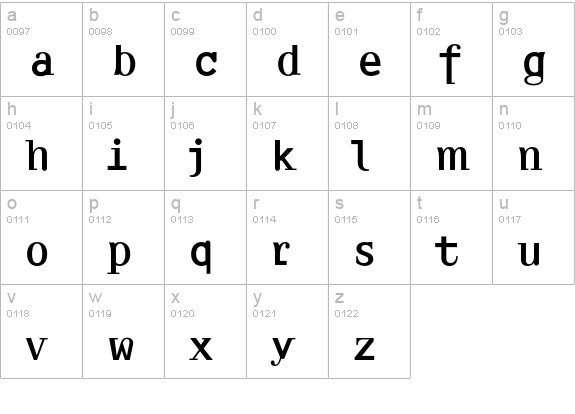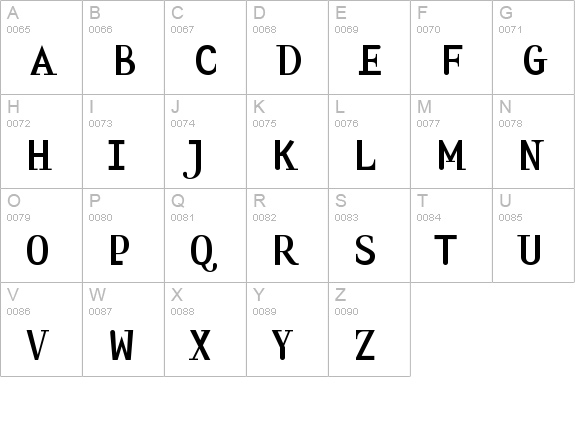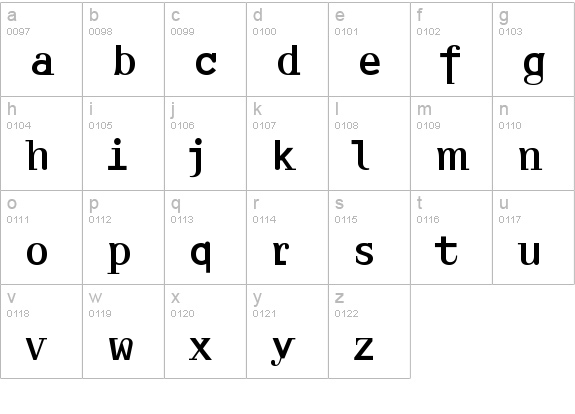
AmplifierLight Font Details
Introducing AmplifierLight font, a sleek and modern typeface that will elevate your design projects to the next level. This font exudes sophistication with its clean lines and contemporary style, making it perfect for branding, logos, posters, and more. AmplifierLight font offers a perfect balance of elegance and readability, making it suitable for a wide range of applications. Whether you're looking to create a professional business card or a striking website header, this font will help you achieve a polished and professional look. And the best part? AmplifierLight font is completely free to download at FontsMarket.com. So go ahead and enhance your creative projects with this versatile and stylish font today!